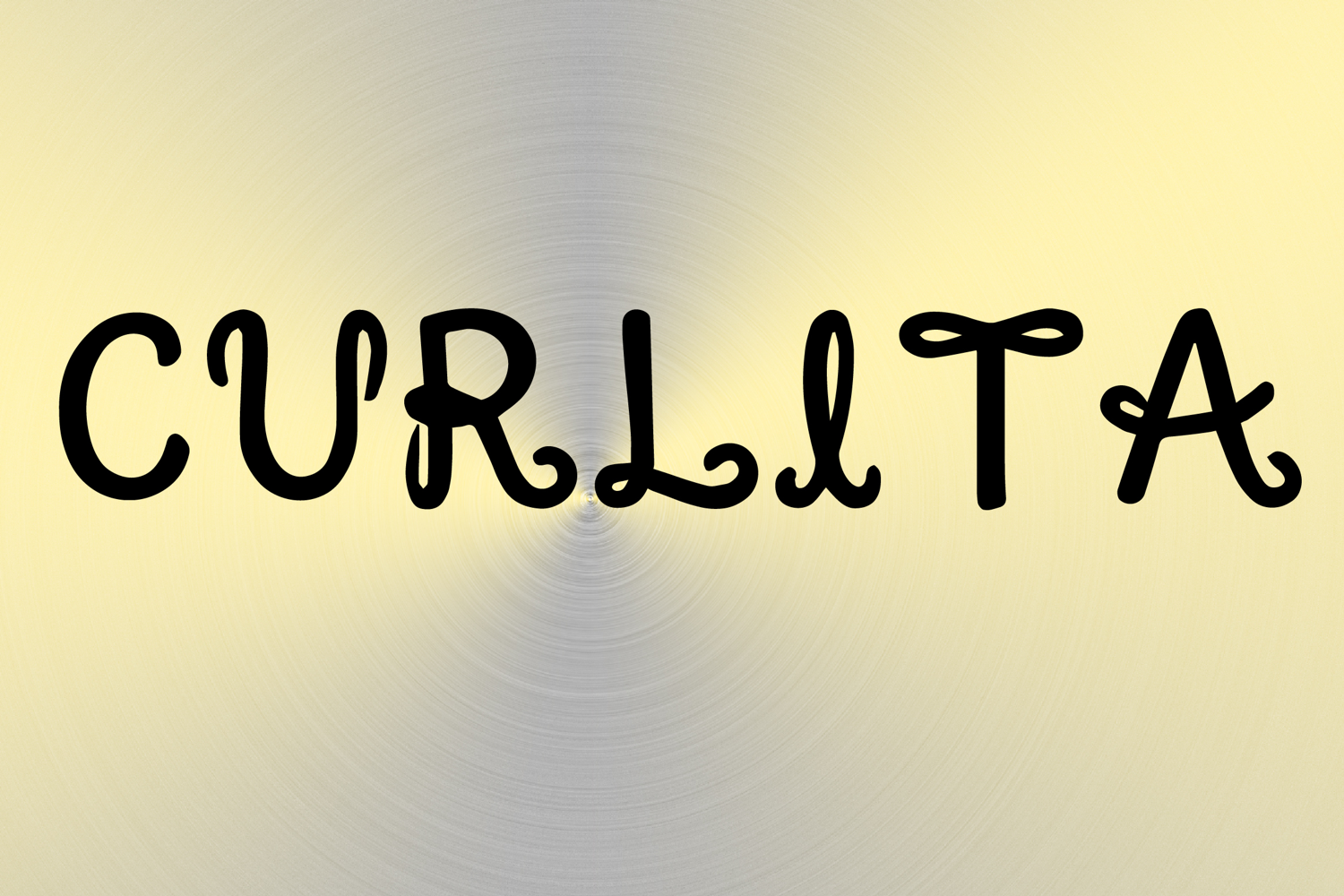
Curlita
Curlita is a whimsical decorative display font with a playful handcrafted style and elegant curly charm. Its uppercase letterforms feature smooth flowing strokes, looped terminals, and soft ornamental swirls that create a fun, stylish, and eye-catching look. Designed with uppercase letters A–Z and numbers 0–9, Curlita is perfect for branding, posters, packaging, invitations, logos, and creative projects that need a sweet and memorable statement.